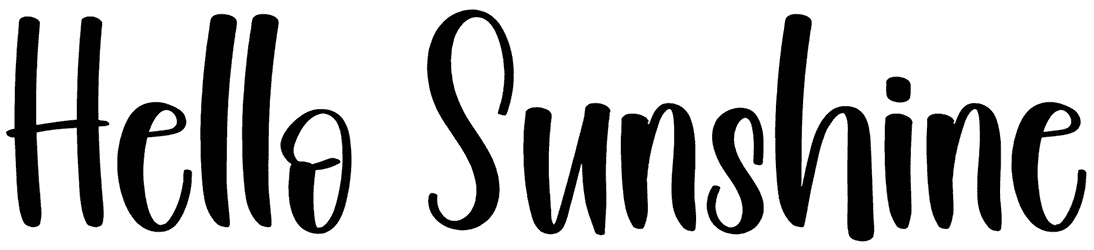
Hello Sunshine Font
Bring fun and excitement to your work with Hello Sunshine, an adorable handwritten font designed simply, and also has good readability, which can elevate your creative ideas to the highest level. This summer font is versatile and will be perfect for a wide range of concepts such as product packaging, homeware designs, social media posts, birthday parties, book covers, and so much more.